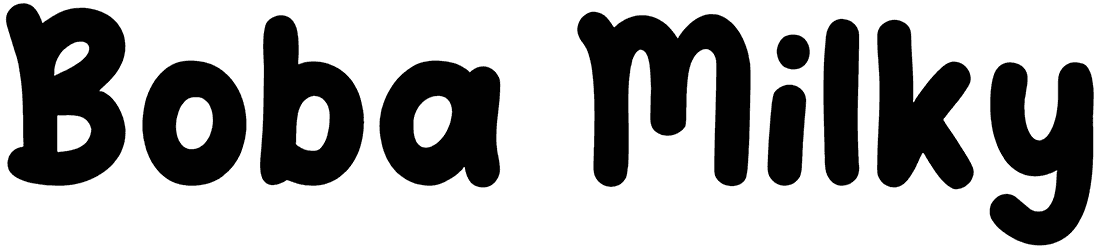
Boba Milky Font
What can make a difference between a simple design and a masterpiece is paying attention to details. Using adorable lettering can boost your project, and this cartoon font has such potential. As an ice cream font, Boba Milky will be amazing for varied layouts like kids’ posters, cafe menus, labels, and many others.